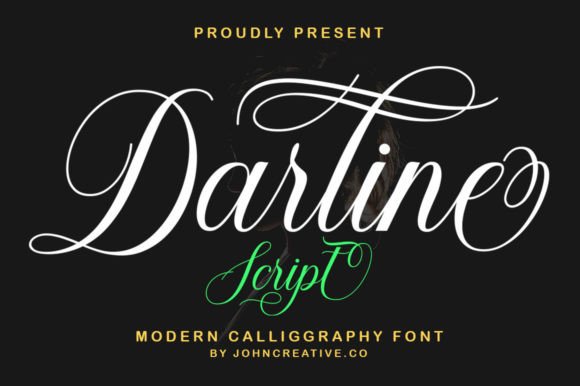
Introducing Darline Script, the perfect handwritten font for all your creative needs. This font was meticulously crafted by mr.johncreative.co to provide a sophisticated and authentic look to any message you want to convey.
Darline Script is versatile, adaptable, and easy to read. It's perfect for crafting ideas such as cards, logos, branding, labels, and much more. With its unique charm, it adds a personal touch to any project you're working on.
This font exudes confidence and elegance, making it an excellent choice for businesses looking to create a professional image. It's the perfect tool for graphic designers, entrepreneurs, and anyone else who wants to make a statement with their projects.
Whether you're looking to create a romantic wedding invitation or a modern business logo, Darline Script has got you covered. Its fluid strokes and delicate curves make it perfect for creating a variety of moods and emotions.